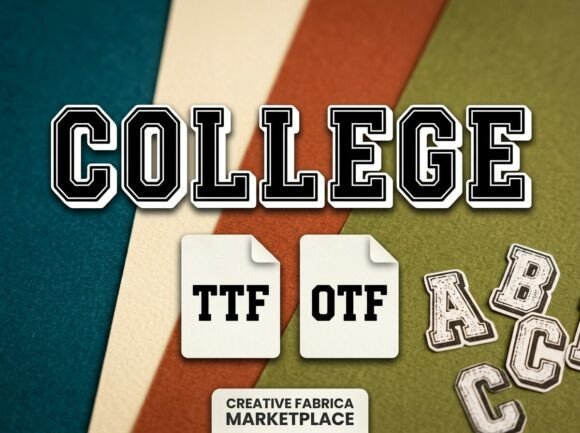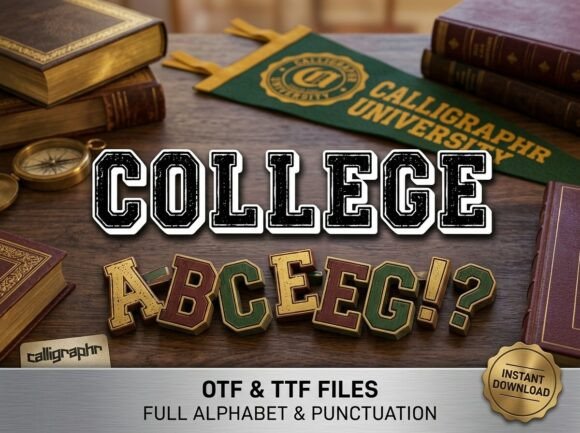
Introducing College Font: A Stunning Decorative Display Font
Are you tired of using the same old fonts for your creative projects? Look no further! College Font is a unique and artistic display font that is sure to make your designs stand out from the crowd. With its strong visual personality and decorative elements, this font is perfect for creators who want to add a touch of elegance and sophistication to their work.
What Makes College Font Special?
College Font is a decorative display font that is designed to be the center of attention. Its unique artistic elements and strong visual personality make it perfect for bold headlines, artistic logos, and creative packaging. Whether you’re a designer, crafty DIY enthusiast, or simply someone who loves to create, this font is sure to inspire you to new creative heights.
Key Features of College Font
- Unique Artistic Elements: College Font features unique artistic elements that set it apart from other fonts. Each letter is carefully crafted to make a statement, making it perfect for high-impact headlines and logos.
- Strong Visual Personality: This font has a strong visual personality that is sure to grab attention. Its decorative elements and bold design make it perfect for creative projects that need to stand out.
- Versatile: College Font is versatile enough for use in a variety of creative projects, including bold headlines, artistic logos, and creative packaging.
- Professional and Polished Finish: Despite its bold and decorative design, College Font maintains a professional and polished finish, making it perfect for use in high-end designs.
Who is College Font For?
College Font is perfect for:
- Designers: Graphic designers, branding experts, and anyone who wants to add a touch of elegance and sophistication to their designs.
- Crafters: DIY enthusiasts, crafty makers, and anyone who loves to create unique and personalized items.
- Creatives: Anyone who wants to add a touch of personality and style to their creative projects, including bloggers, writers, and artists.
How to Use College Font
College Font can be used in a variety of creative projects, including:
- Headlines and Titles: Use College Font to create bold and eye-catching headlines and titles for your blog posts, articles, and social media posts.
- Logos and Branding: Use College Font to create unique and memorable logos and branding elements for your business or personal brand.
- Packaging and Labels: Use College Font to create creative and eye-catching packaging and labels for your products or gifts.
College Font is a stunning decorative display font that is sure to make your designs stand out from the crowd. With its unique artistic elements, strong visual personality, and versatile design, this font is perfect for creators who want to add a touch of elegance and sophistication to their work. Whether you’re a designer, crafty DIY enthusiast, or simply someone who loves to create, College Font is a must-have font for your creative toolkit.